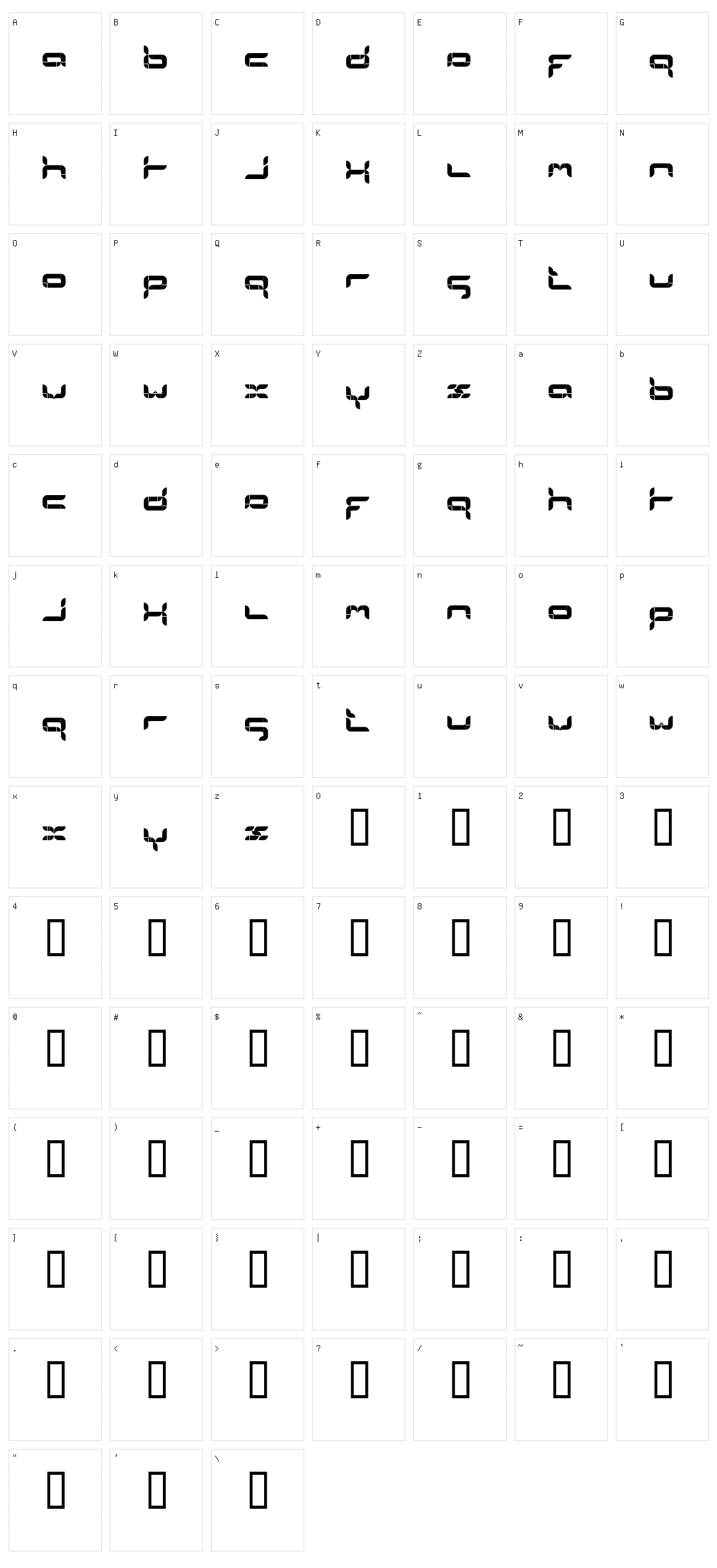
FormlosOrganik
Designed by: formlos/FRML
formlosorganik
by david hubner / formlos, design bureau
this is a free beta version of organik, a experimental techno typeface,